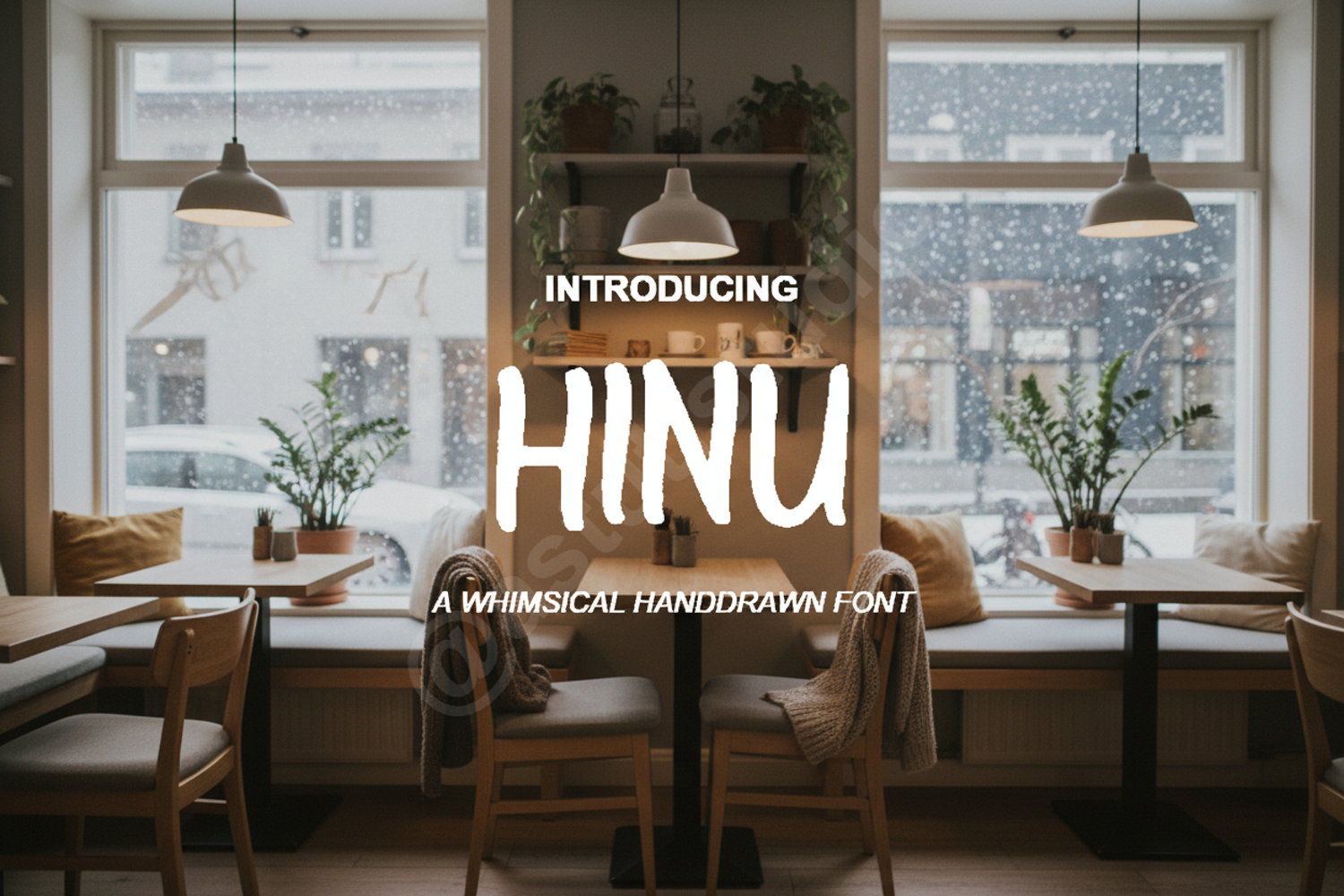
Hinu - Modern Minimalist Sans Serif Typeface
Hinu
Hinu is a premium, high-quality sans serif typeface meticulously crafted for designers who value clean lines and modern aesthetics. With its balanced proportions and minimalist appeal, Hinu offers a sophisticated touch to any creative project, ensuring your message stands out with clarity and elegance. Whether you are building a brand from scratch or refining an existing design, Hinu provides the versatility needed for professional results.
- Branding and Identity: Create a memorable brand presence with a clean, professional look.
- Editorial Design: Perfect for magazine layouts, headers, and body text.
- Logo Design: Build iconic logos that are both timeless and contemporary.
- Social Media Graphics: Elevate your digital content with high-impact typography.
- Wedding Stationery: Add a modern, chic vibe to invitations and save-the-date cards.
- Product Packaging: Enhance your product's shelf appeal with minimalist typography.